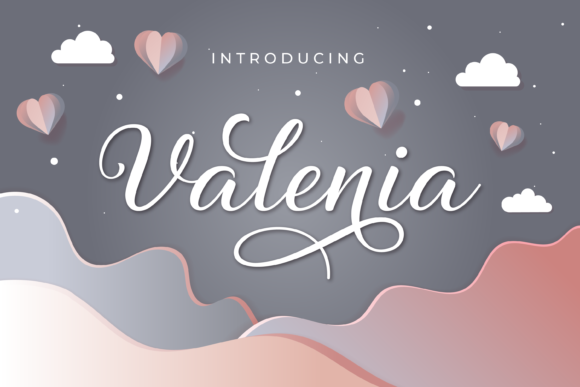
About Valenia Font
Valenia is a sweet, fancy hand-lettered script. The playful rounded characters make it the perfect font for creating stunning calligraphy art. Valenia comes packed with bold swashes, that will allow you to add a decorative touch within seconds. Ignite your creativity with this beautiful font, and use it to elevate any Valentine’s Day craft to the highest level!